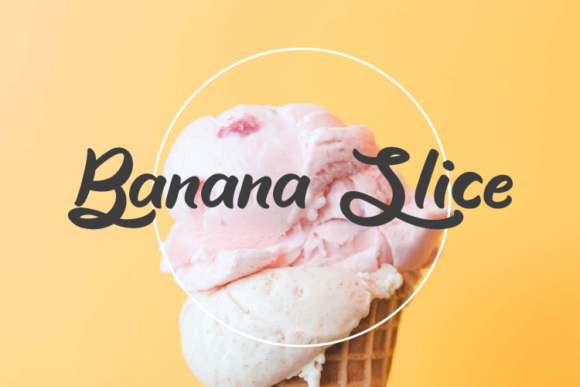
Introducing Banana Slice Font - A Slice of Playfulness for Your Digital Creations!
Step into the realm of captivating typography with Banana Slice Font, a playful and modern script font that will add a touch of whimsy to your designs. This delightful font was meticulously crafted by rizal.medanguide, a renowned font artist with a keen eye for detail.
As part of the script font family, Banana Slice Font exudes a sense of casual elegance, reminiscent of handwritten notes and personal correspondences. Its unique cursive style brings a touch of warmth and individuality to any project, making it an ideal choice for promotion media, quotes, and business applications.
Unleash Your Creativity with Banana Slice Font:
1. Create Promotion Media That Stands Out:
Capture the attention of your audience with visually striking promotion media that features the Banana Slice Font. Its eye-catching design is sure to make your messages pop, ensuring they leave a lasting impression.
2. Add Charm to Your Quotes:
Transform ordinary quotes into works of art by overlaying them with Banana Slice Font. With its elegant curves and playful personality, this font will breathe new life into your words, making them even more memorable and impactful.
3. Elevate Your Business Communication:
Elevate your professional communications by incorporating Banana Slice Font into your business cards, letterheads, and presentations. Its distinct style will add a touch of sophistication and creativity, setting you apart from the competition.
4. Inspire with Artistic Designs:
Open up a world of artistic possibilities with Banana Slice Font. Its compatibility with graphic design applications makes it a versatile tool for creating stunning posters, logos, and illustrations that will captivate your audience.
Join the Creative Revolution with Banana Slice Font:
We believe Banana Slice Font is more than just a font. It's an artistic tool that empowers you to express your unique style and make a statement. With its playful charm and endless creative applications, Banana Slice Font is the perfect choice for businesses, graphic designers, and creative individuals seeking to make a lasting impact.